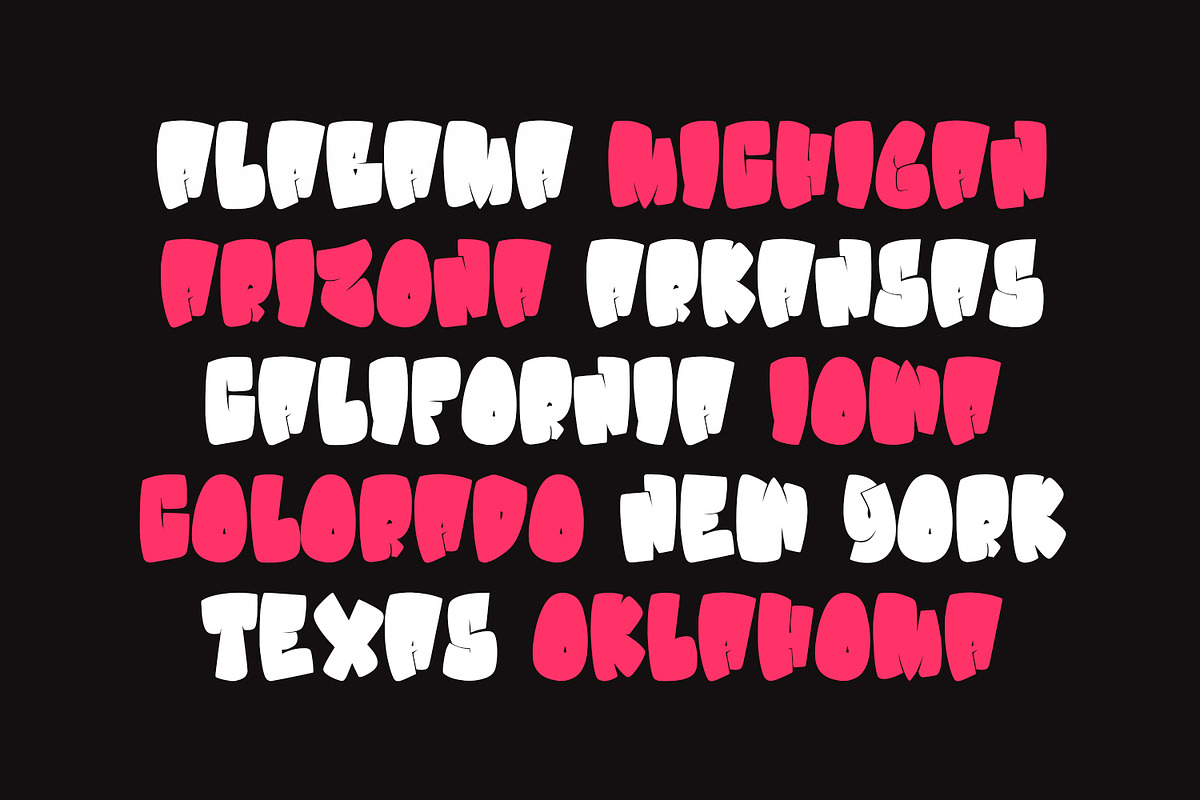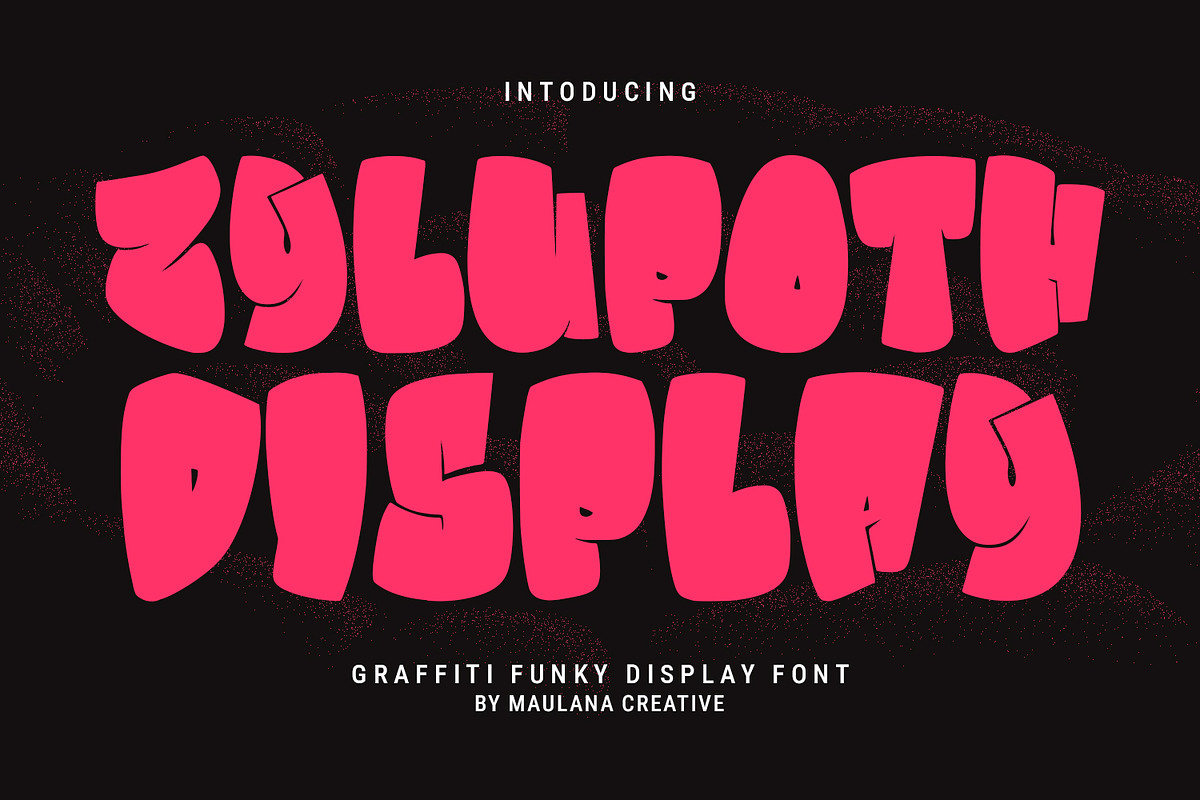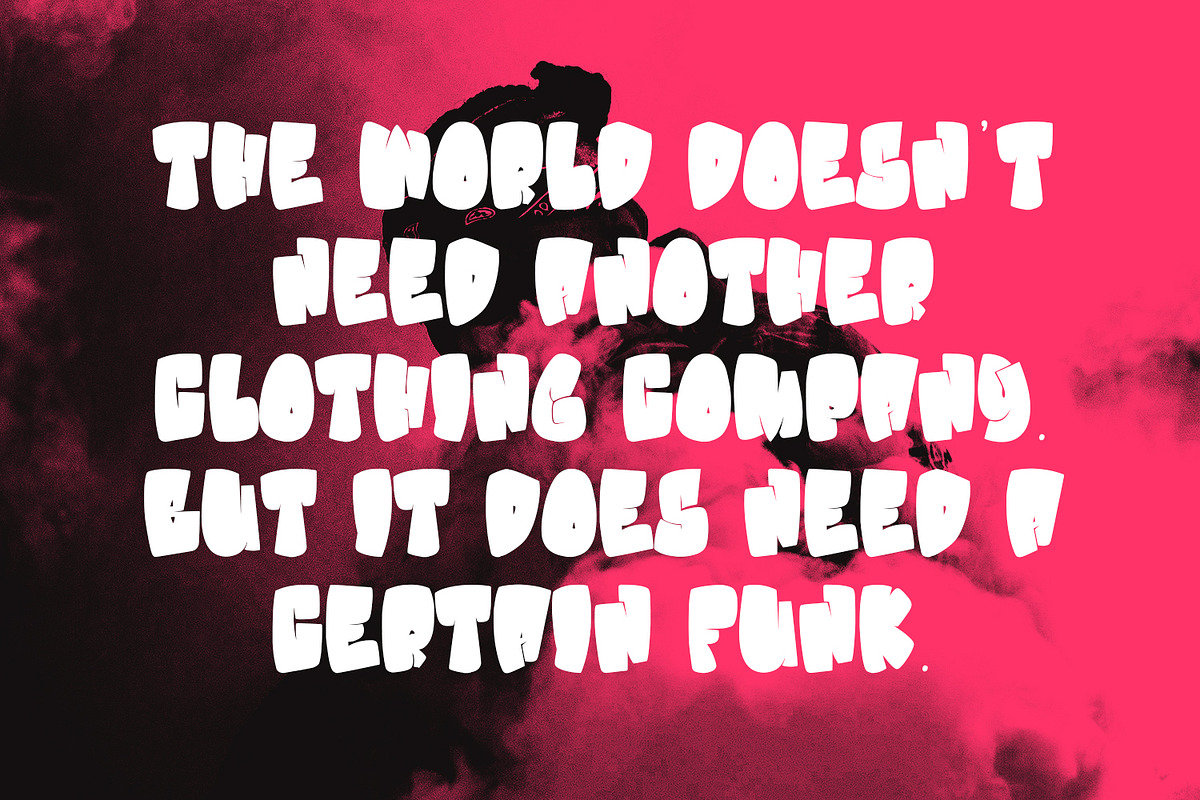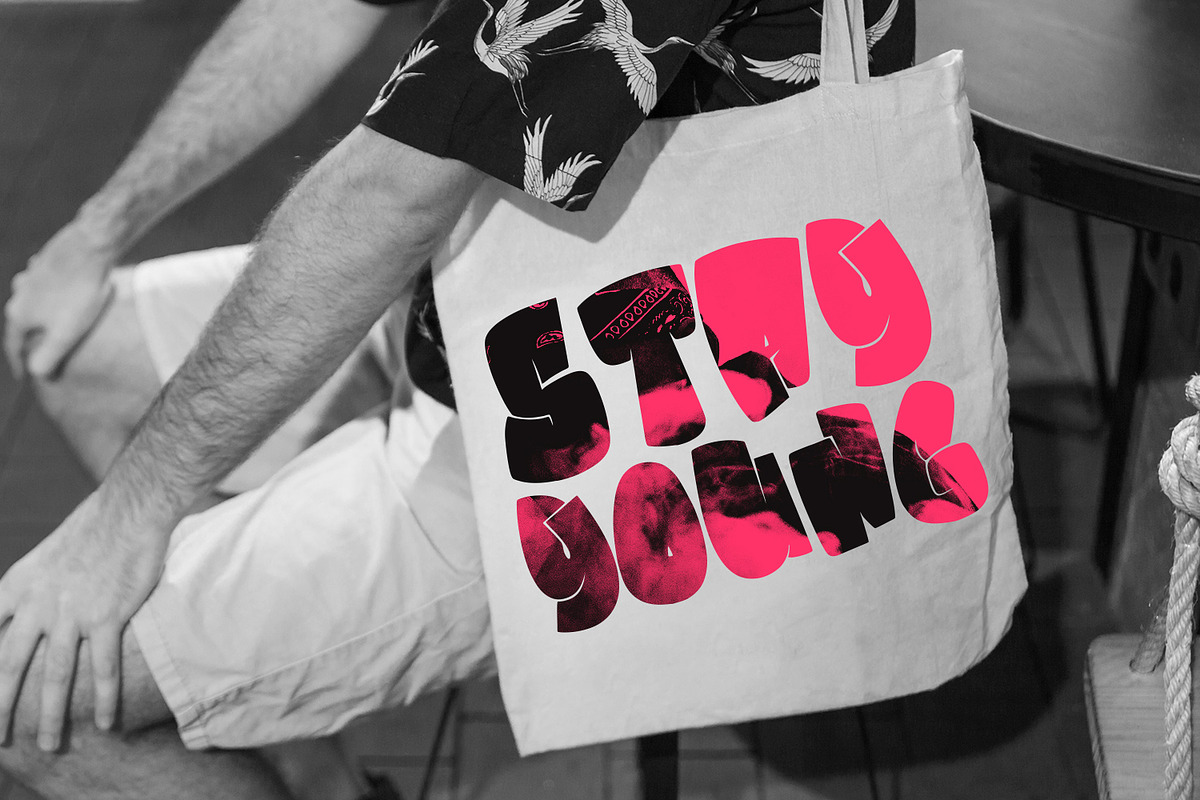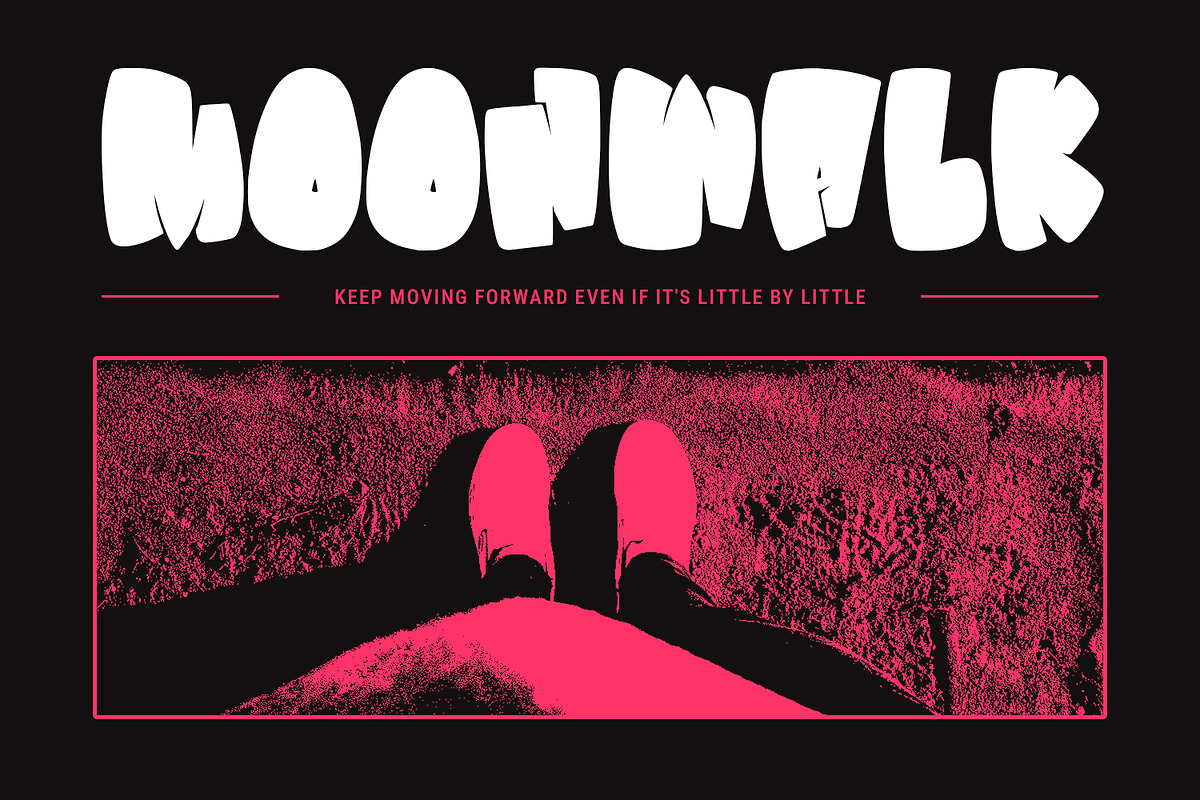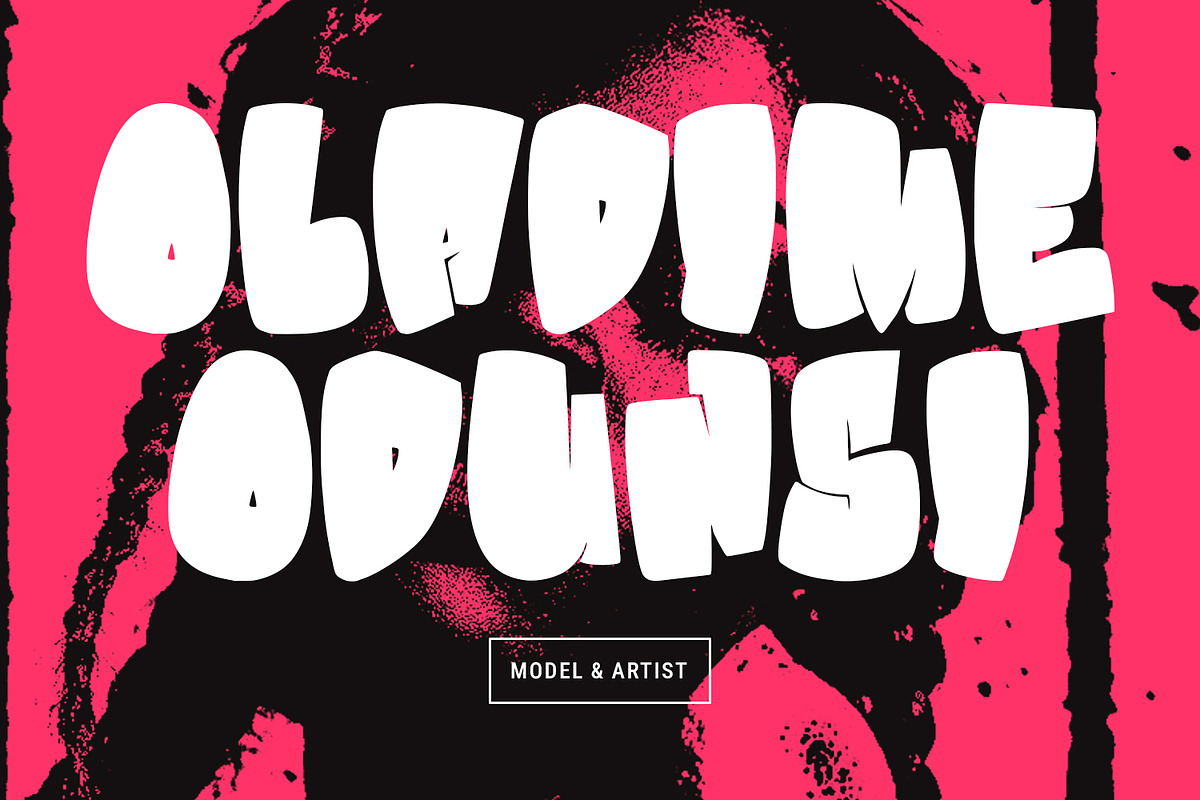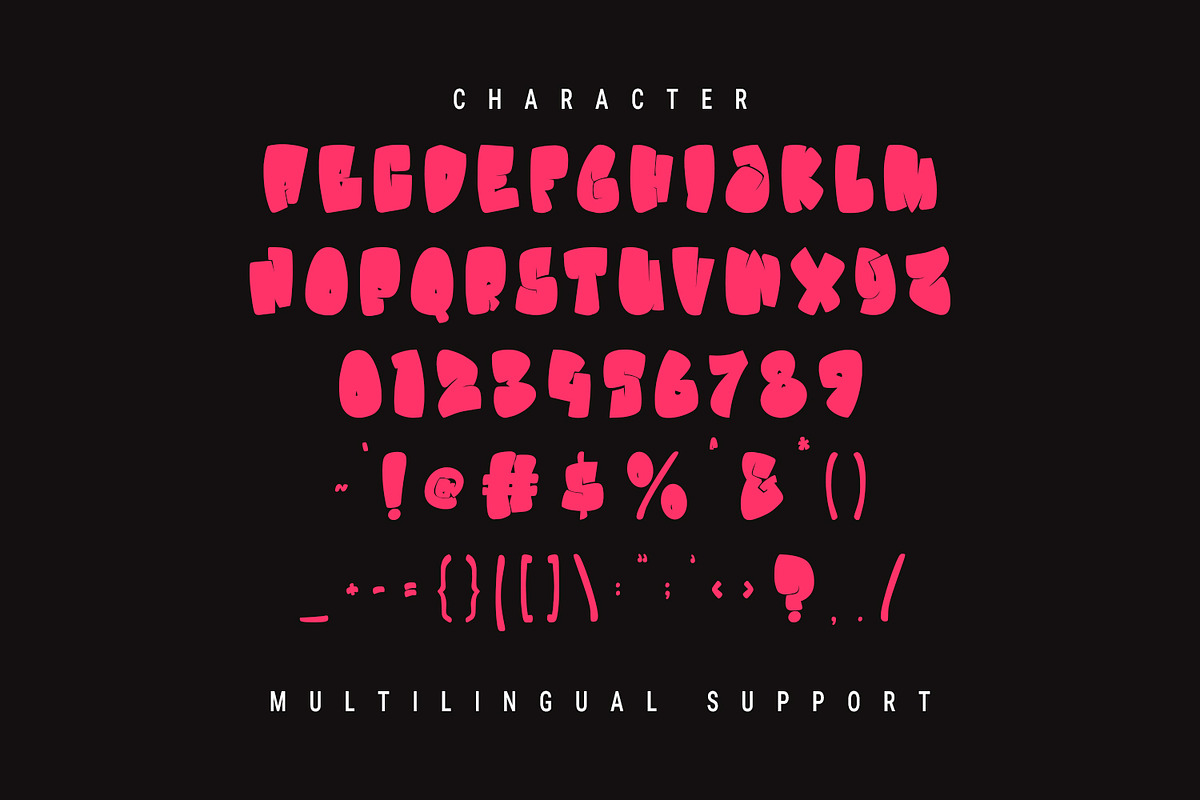
Zylupoth Graffiti Funky Display Font
Give your designs an authentic brush handcrafted feel. "Zylupoth Graffiti Funky Display Font" is perfectly suited to signature, stationery, logo, typography quotes, magazine or book cover, website header, flyer, clothing, branding, packaging design and more.